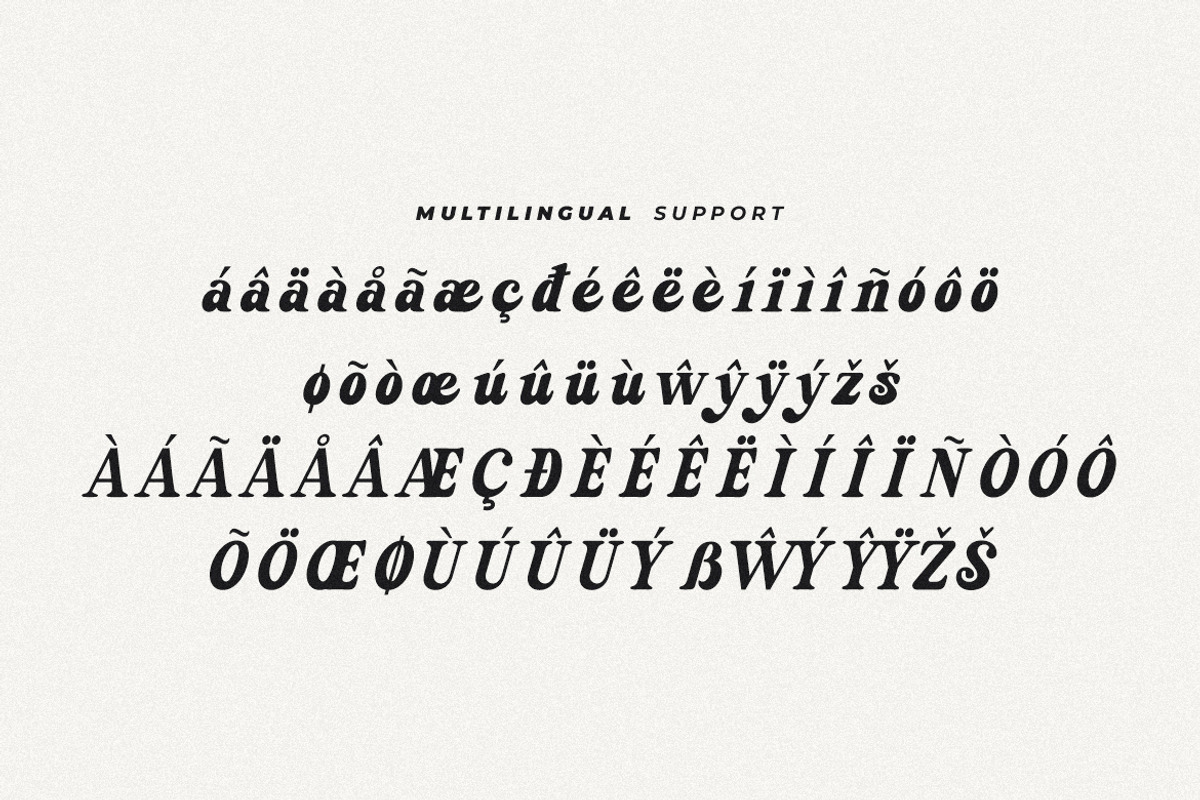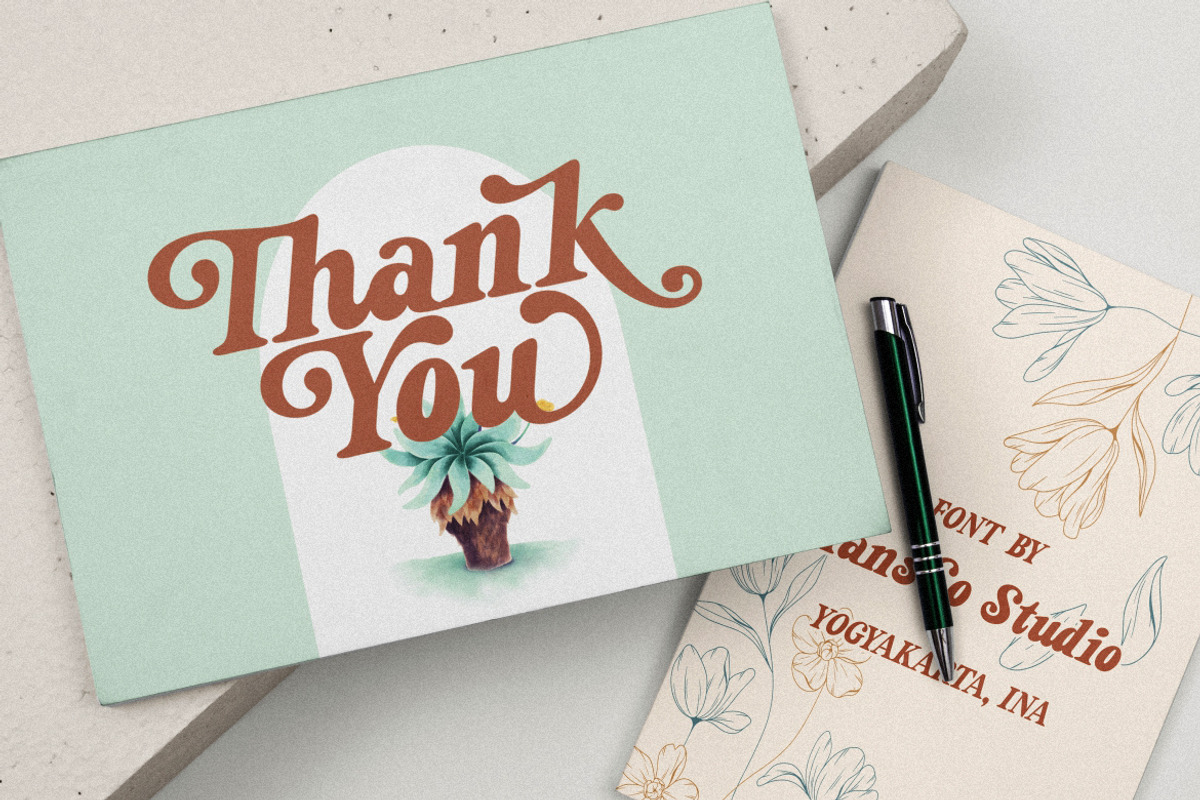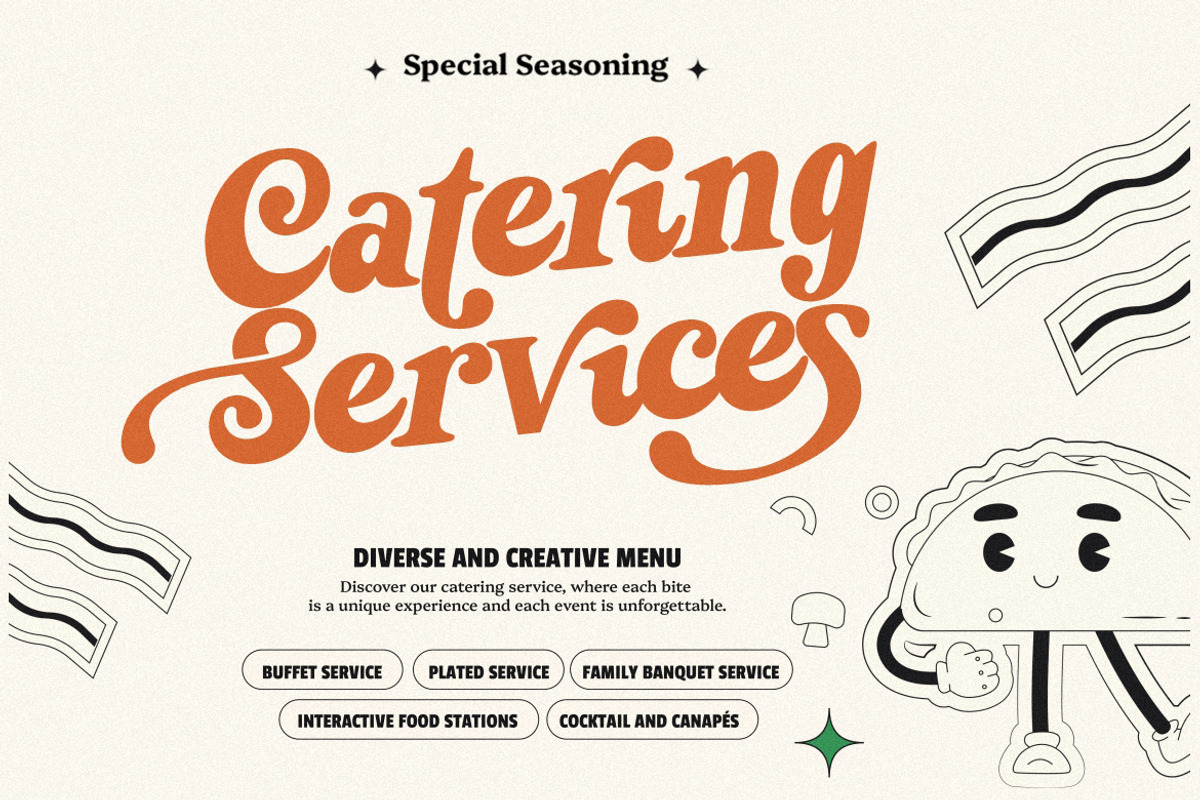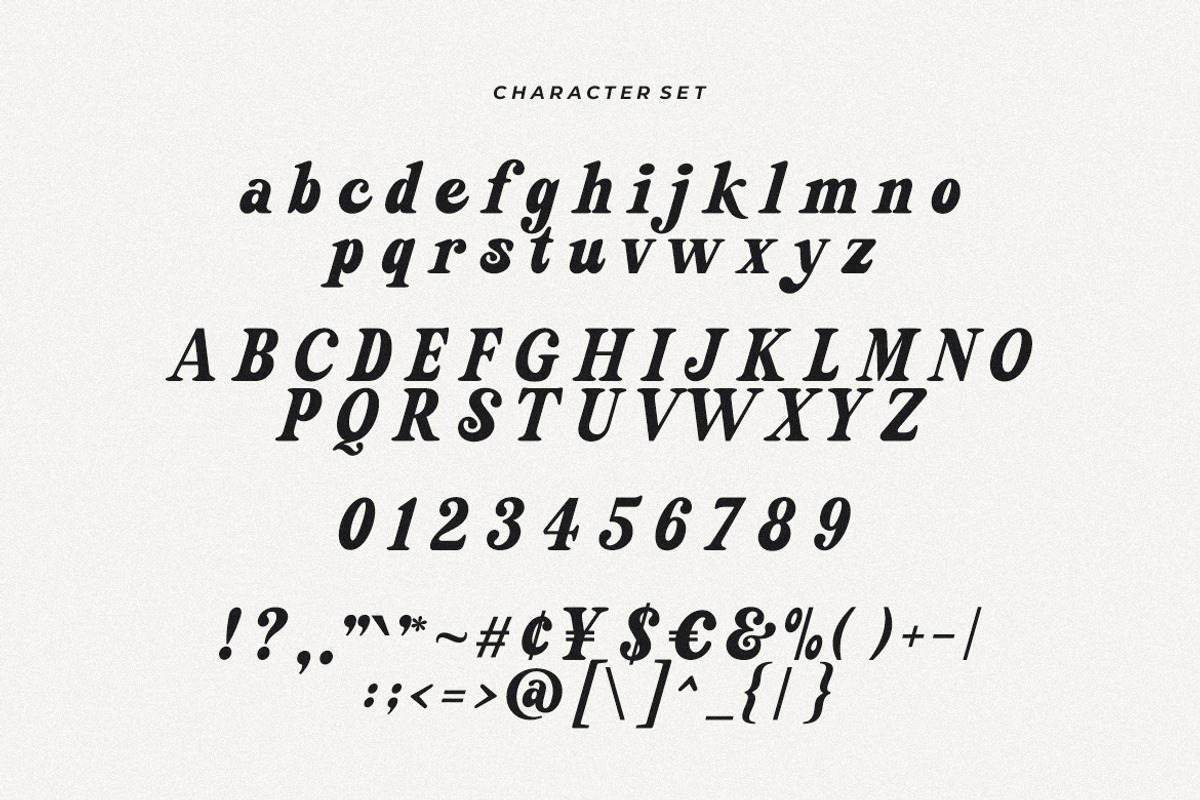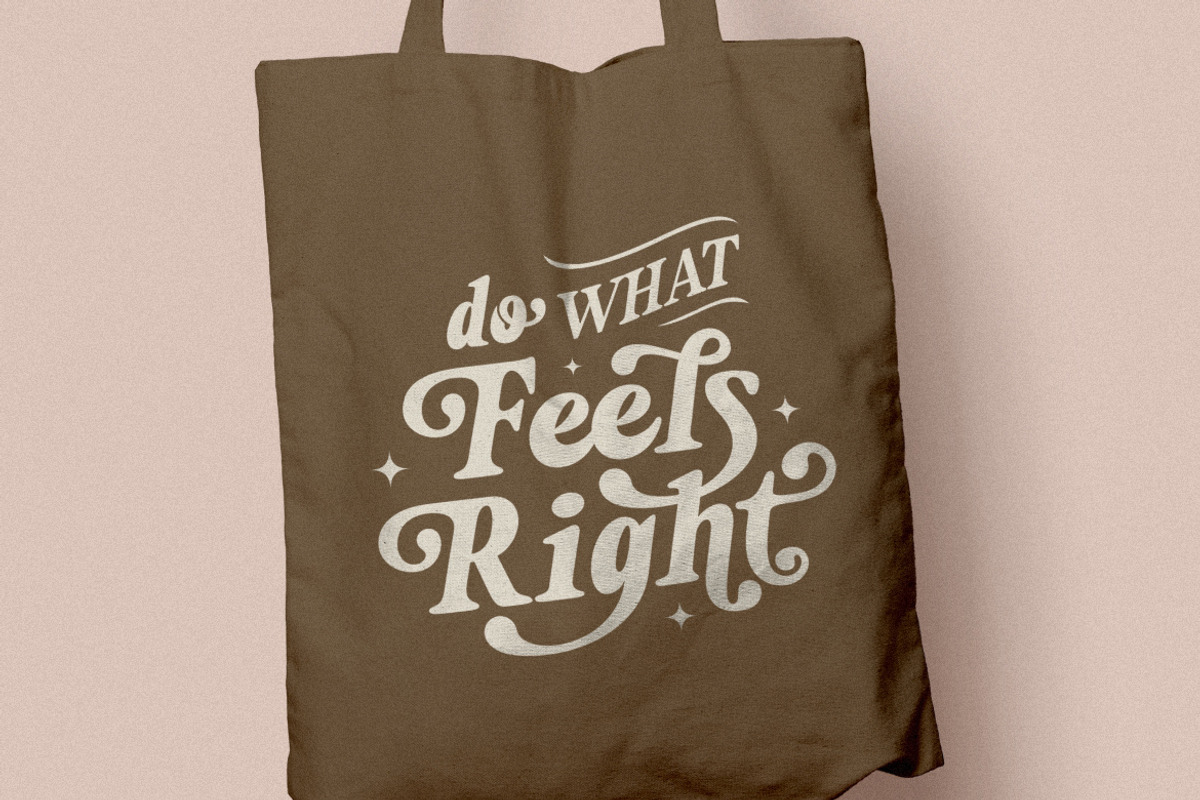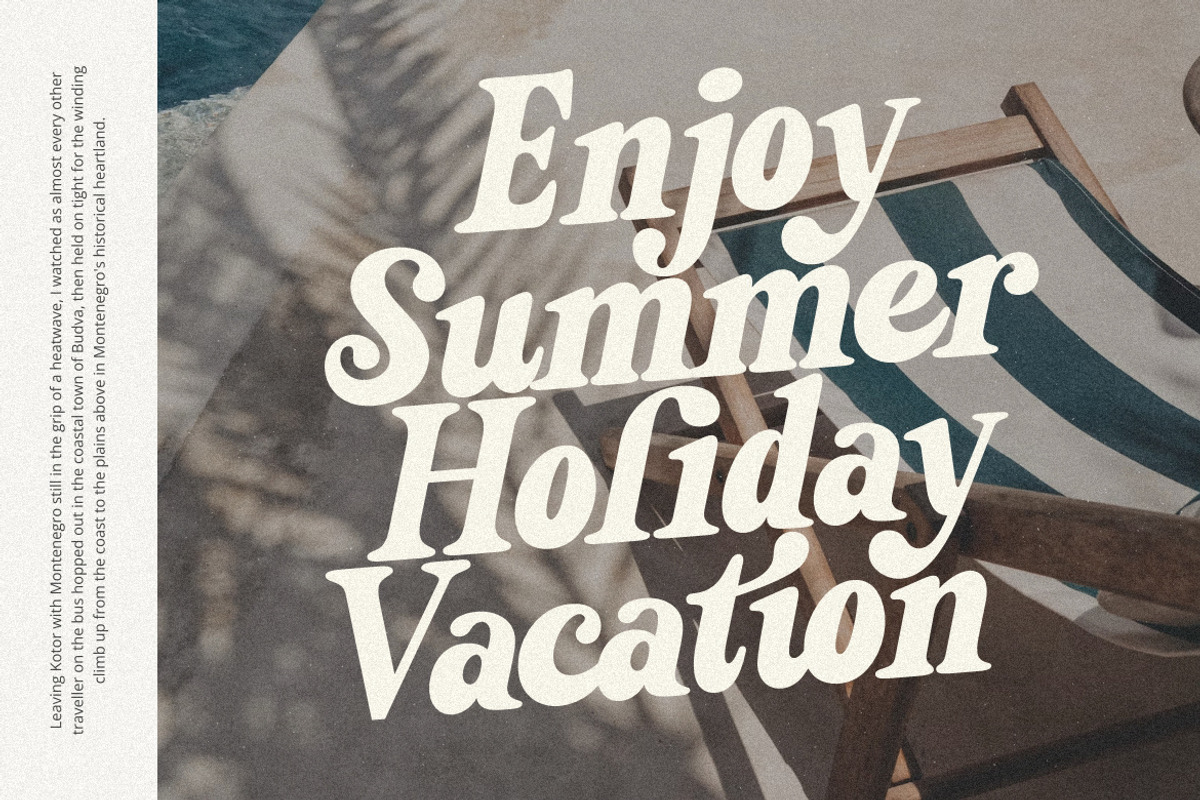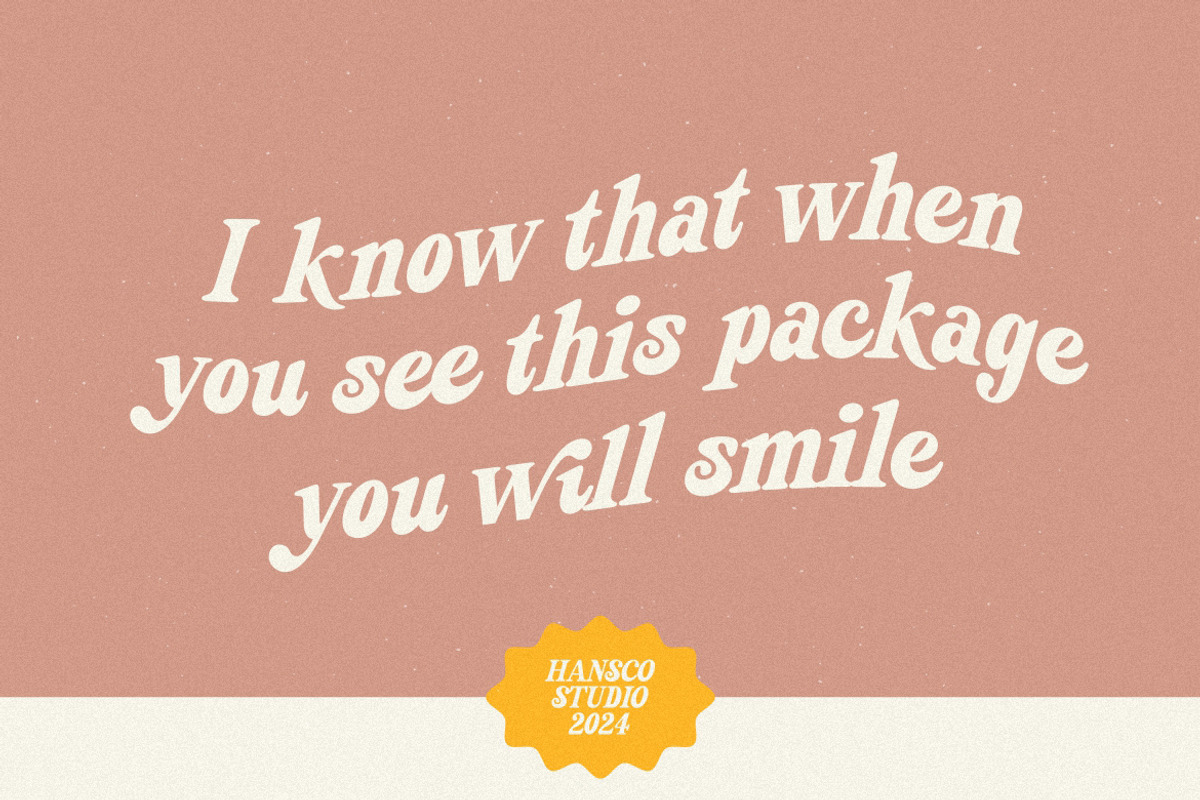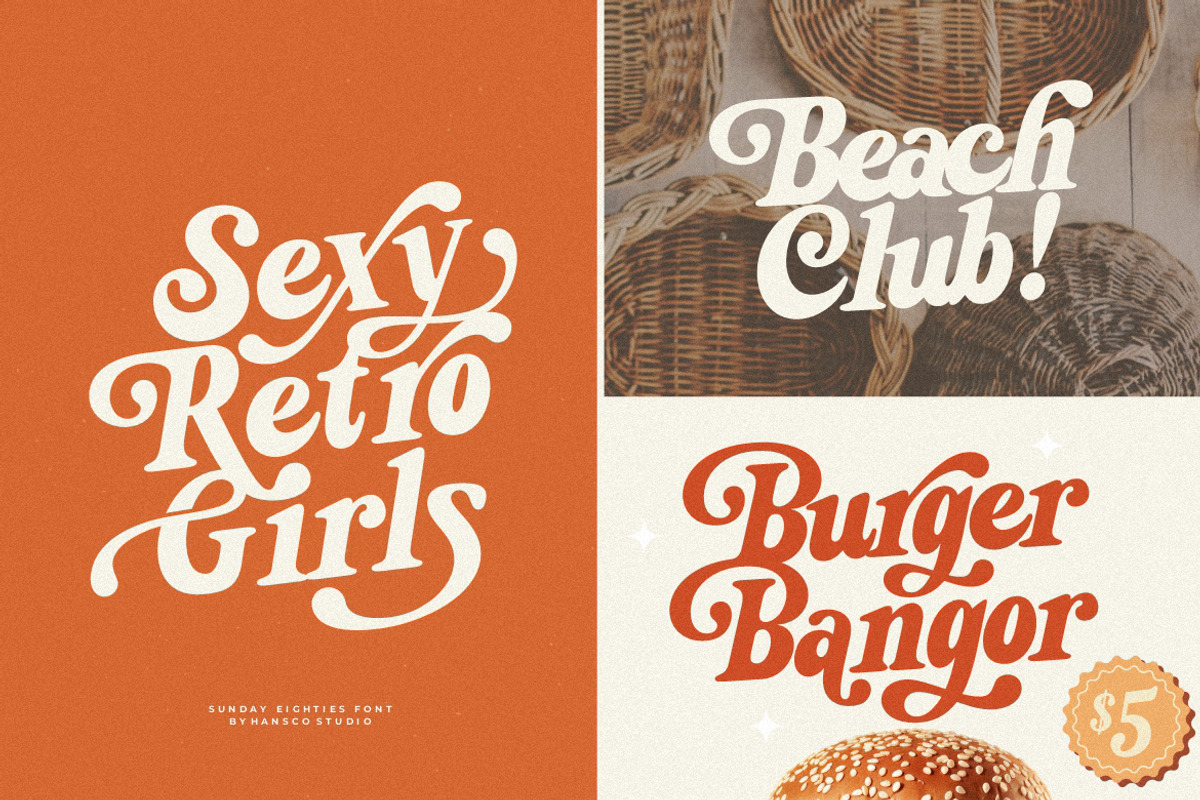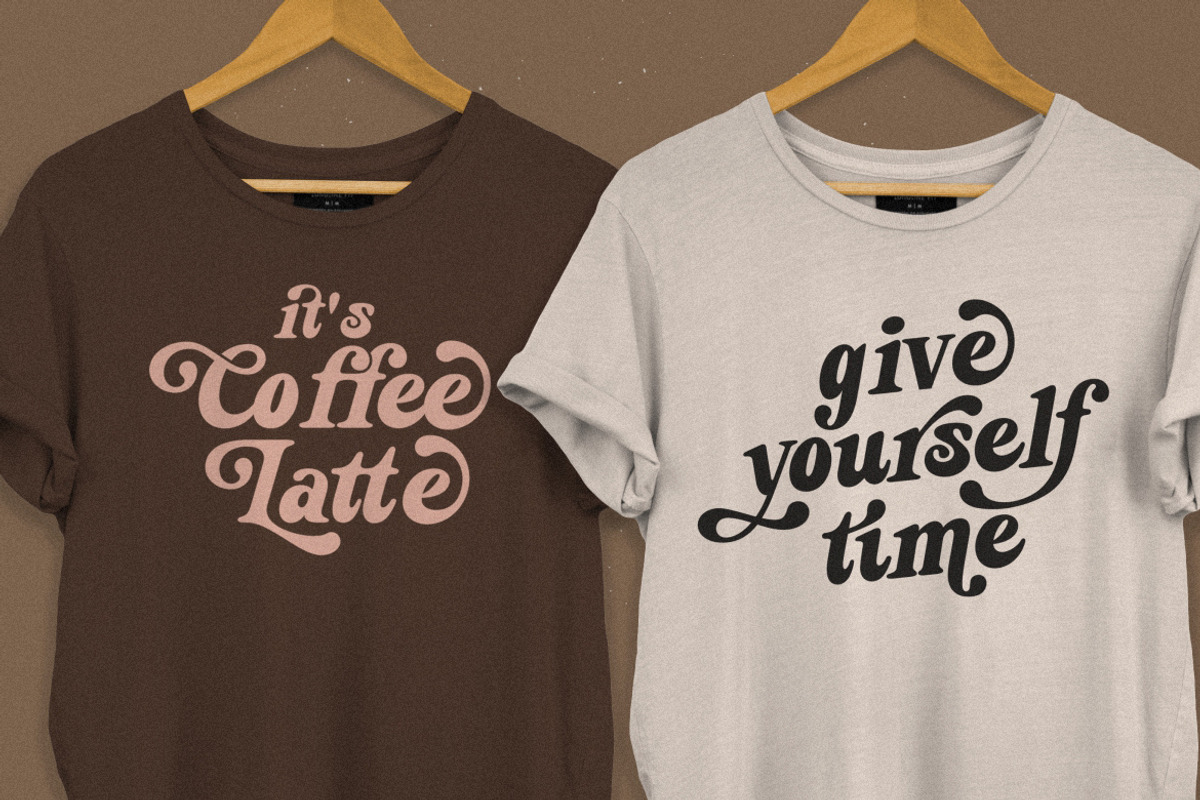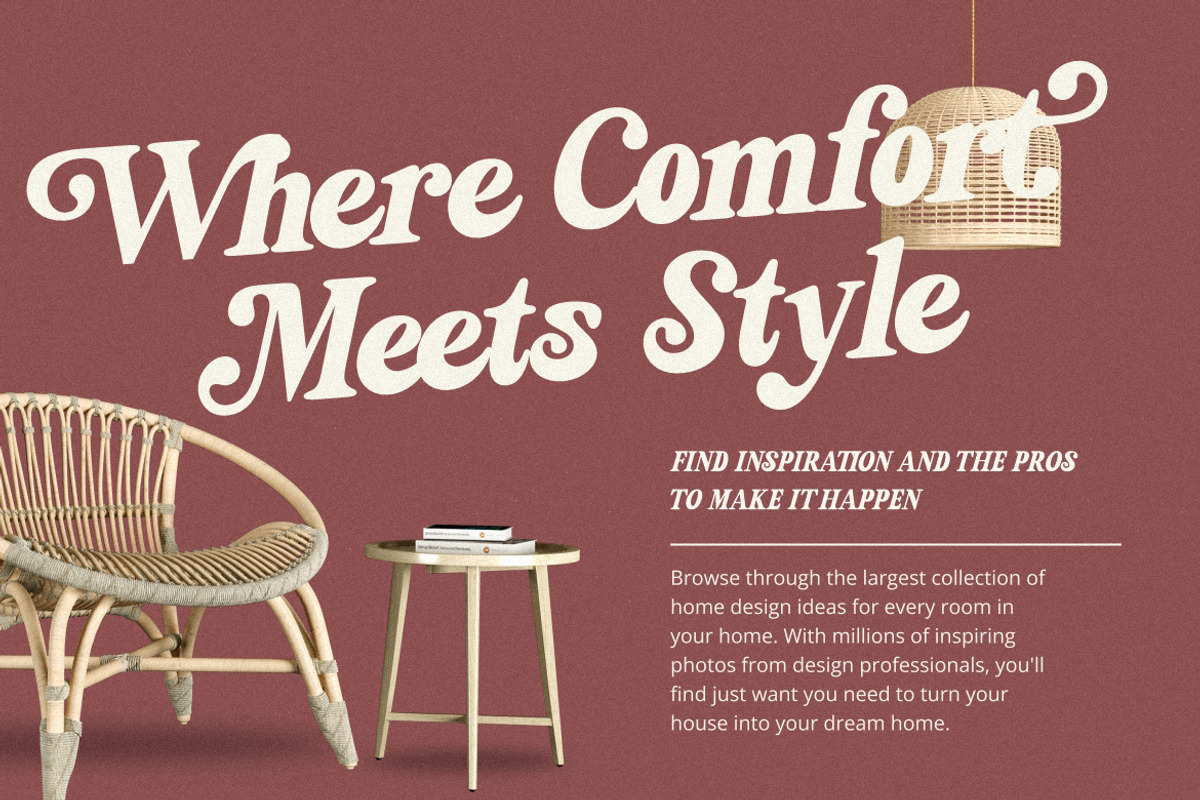
Sunday Eighties Font
Sunday Eighties Font is a simple & bold retro vintage serif font style. You will also get additional alternative swash character fonts that make your design projects amazing. Use this display font to add that special retro vintage touch to any design idea you can think of!. Equipped with all complete characters ranging from uppercase letters, lowercase letters, numbers, punctuation marks and multi-lingual support, this font is ready to be used in any project. Very suitable for logotype, Stickers, Packaging design, Cricut Project, headlines, brand identity, t shirt or apparel industry, posters, magazines, books, YouTube, Instagram, websites, or any of your creative design projects.
I had to come give a review because the previous person who only gave one star clearly didn't read the two attached documents to the download. It was really easy to find and use all the cool extra curly and joined letters following the instructions. I was able to easily and quickly knock out some fabulous art with this. Absolutely recommend, it's a great, professional looking font!